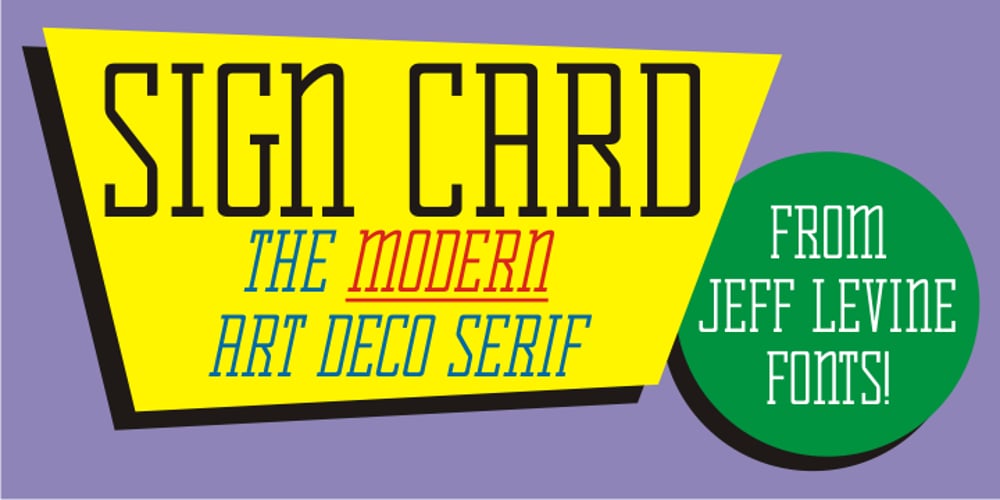
Sign Card JNL Font Family was designed by Jeff Levine and published by Jeff Levine. Sign Card JNL contains 2 styles and family package options. The addition of serifs to an existing typeface can drastically change the look and feel of a design. Sign Card JNL and its oblique version is just such a treatment of Sign Shop JNL. By adding the serifs, there is not only a brand-new Art Deco typeface possessing a regal and formal style, but a distant resemblance to a Russian Cyrillic font with its mechanical form and function.